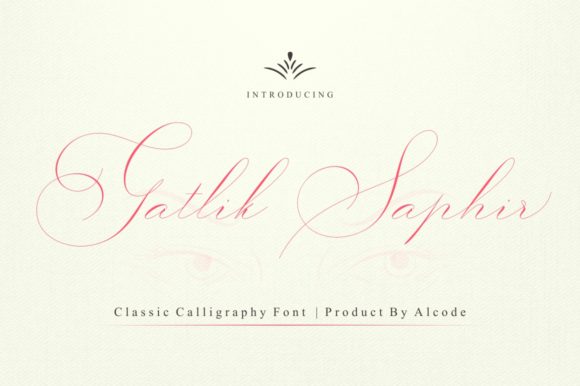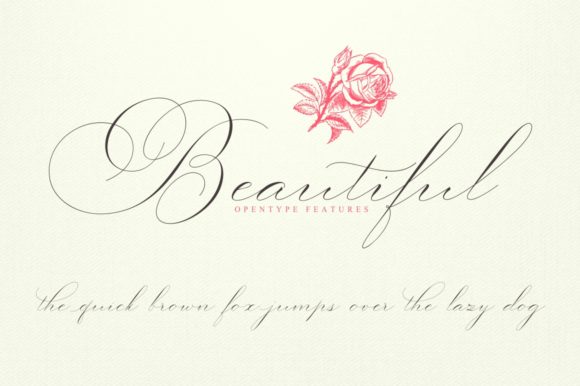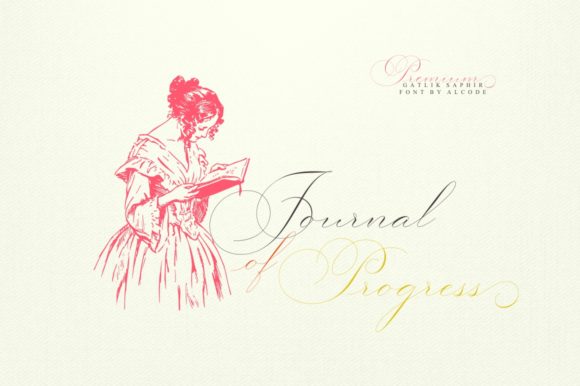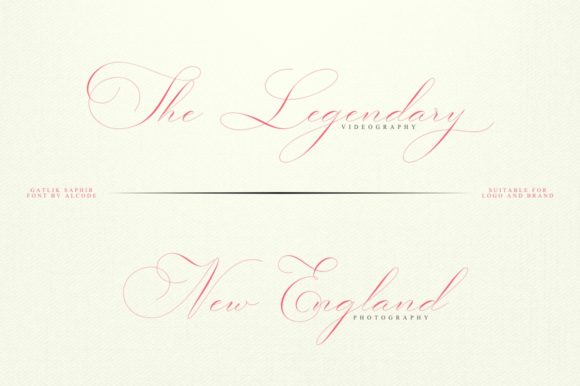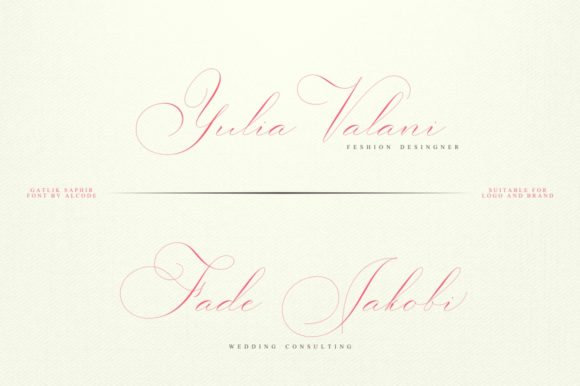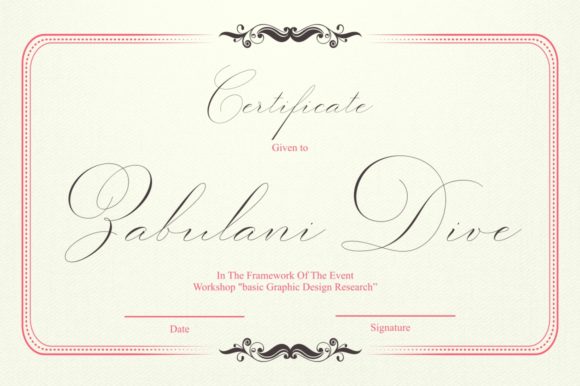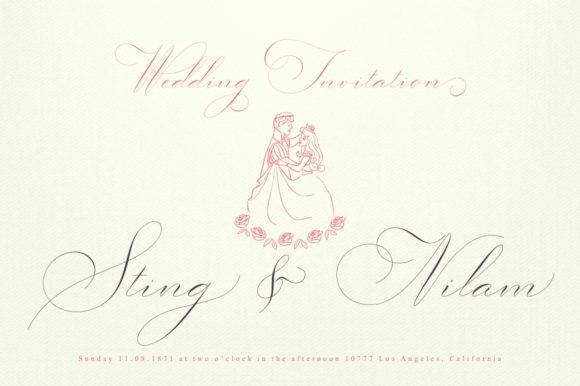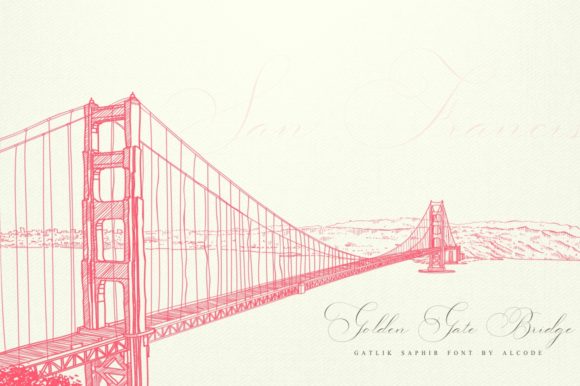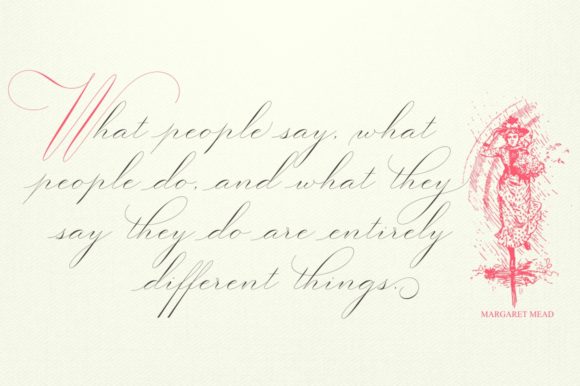
Gatlik Saphir Font
About Gatlik Saphir Font
Gatlik Saphir is a magical handwritten font carefully created with a touch of elegance. This is a beautiful combination of timeless elegance and authentic calligraphy, which makes it particularly suitable for creating gorgeous wedding invitations, beautiful stationary art and much more!